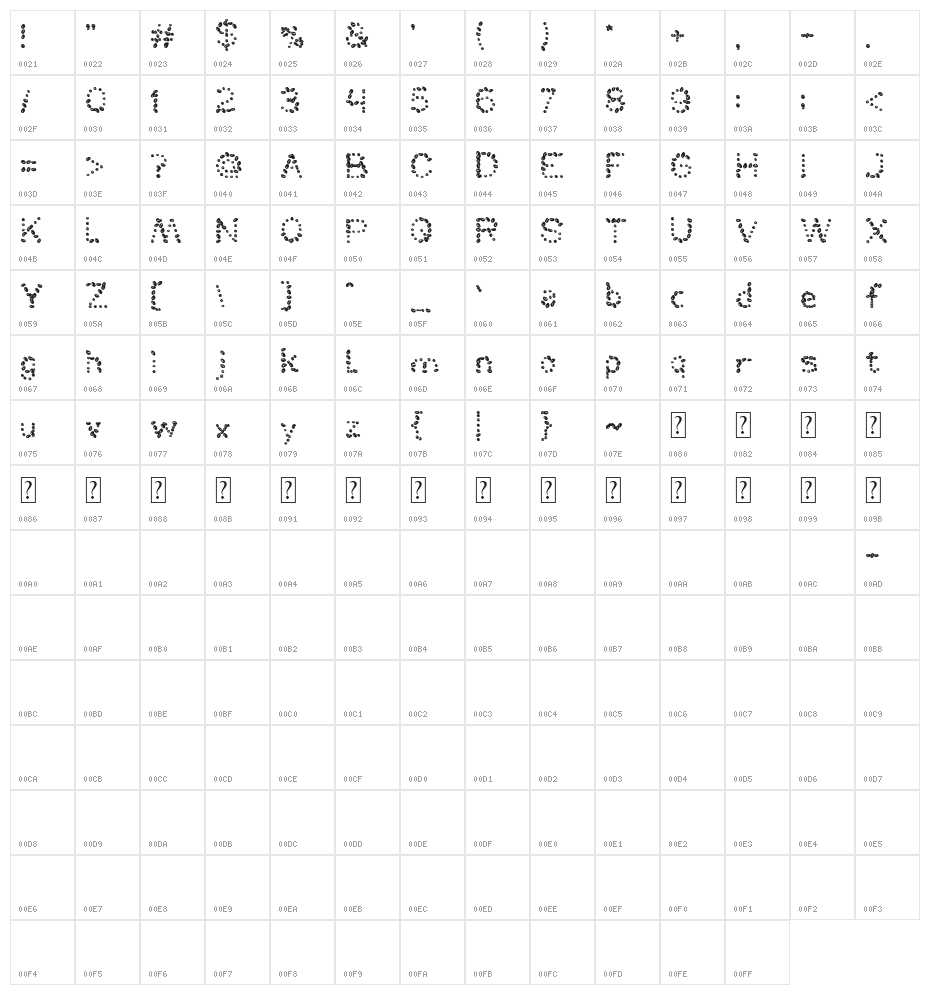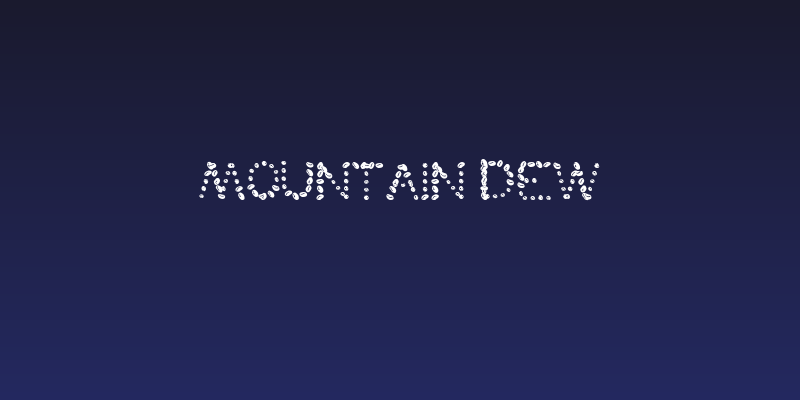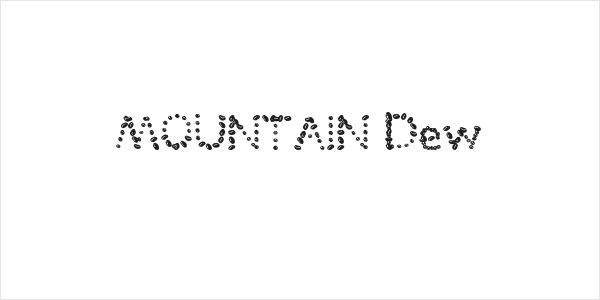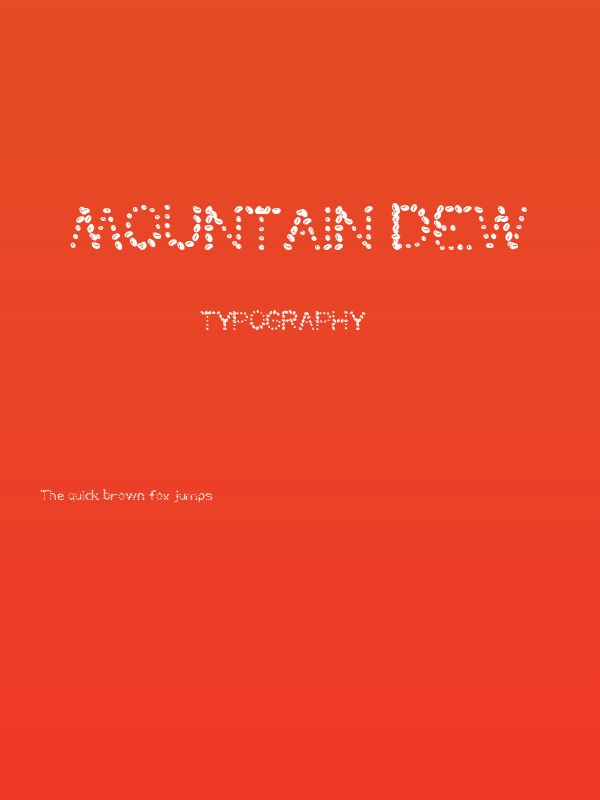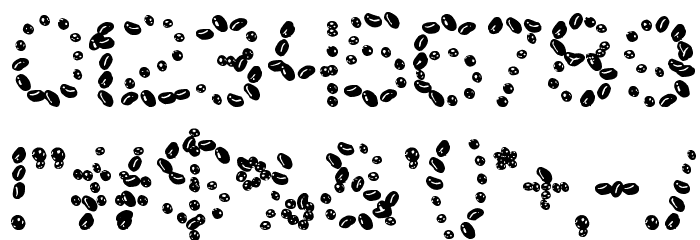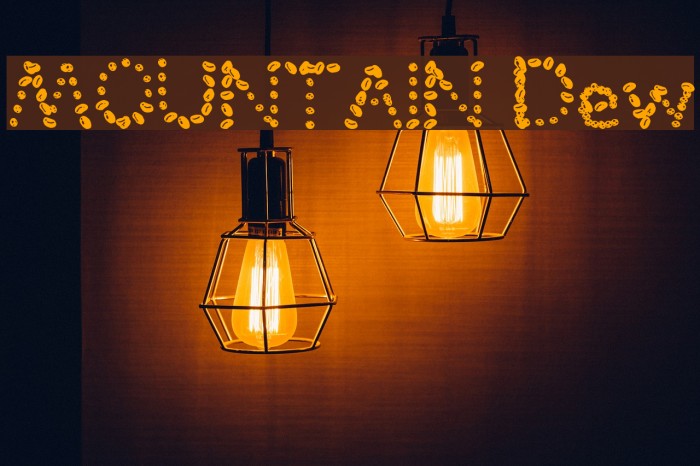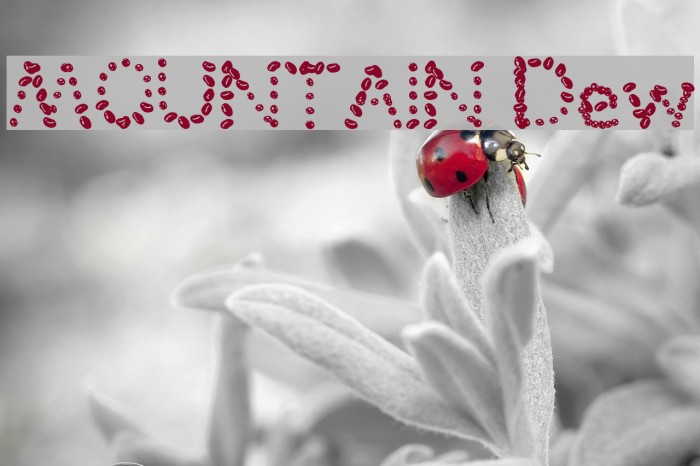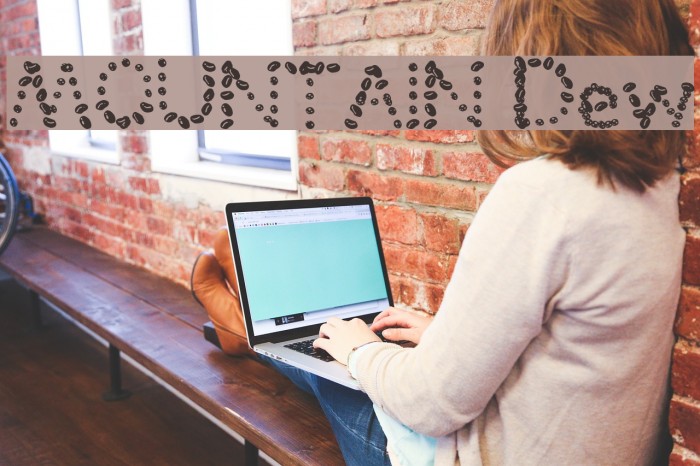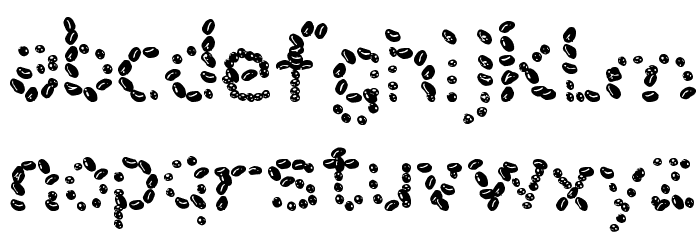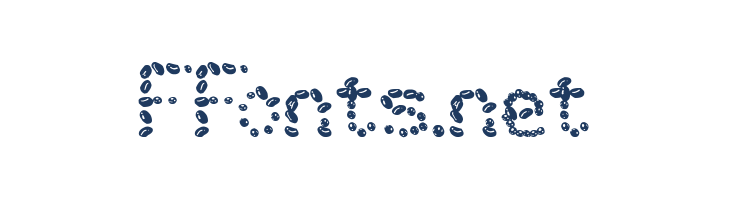
MOUNTAIN Dew Font
This unique font is composed entirely of small, rounded shapes resembling coffee beans, creating a playful and textured appearance. Each character is formed by these individual elements, giving the font a distinctive and organic look. The letters are well-defined despite the unconventional structure, maintaining legibility while offering a creative twist. The font's playful nature makes it suitable for projects that require a fun and informal touch. Its distinct style can capture attention and add a unique flair to any design. The overall design is consistent across uppercase, lowercase, numbers, and special characters, ensuring a cohesive look throughout.
| Proposed Projects | Ideal for coffee shop branding, playful posters, children's book covers, and creative packaging designs. |